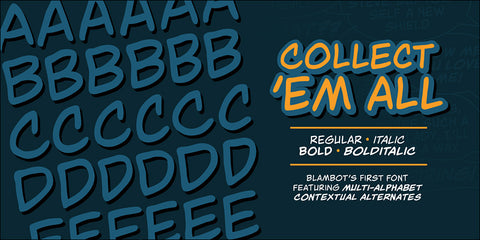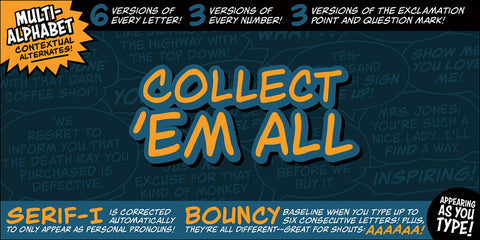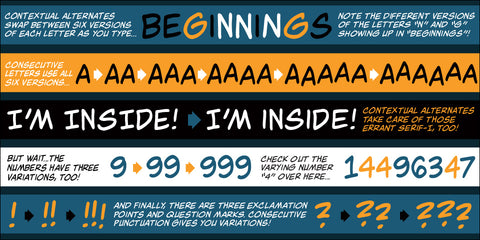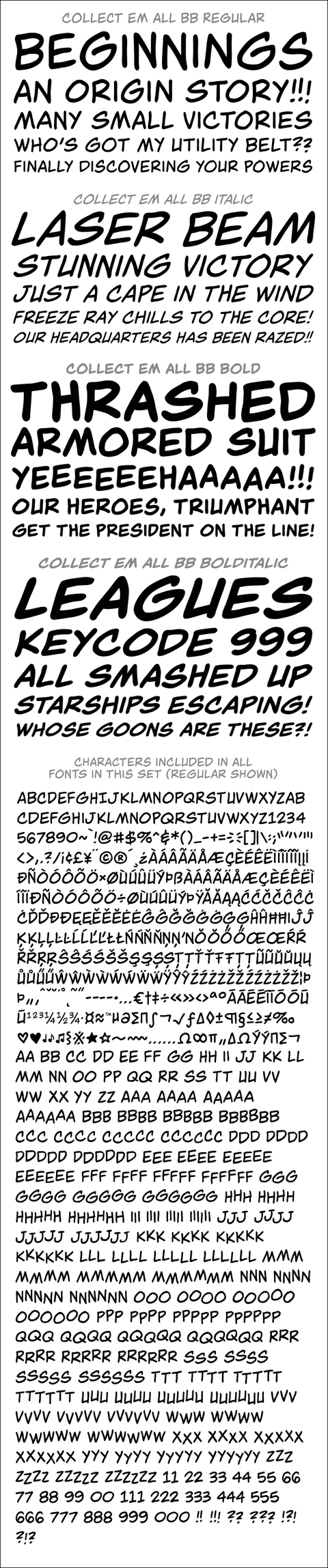
Collect Em All
• Regular, Italic, Bold, Bold Italic
• Includes European characters
• Contextual alternates create multiple versions of letters, numbers and punctuation, errant barred-I correction, type up to six consecutive letters have a bouncy baseline, includes manga glyphs.